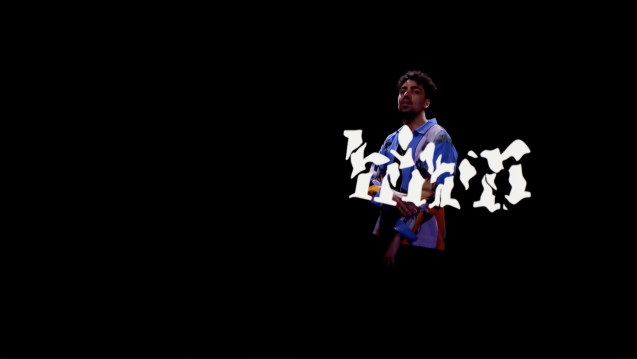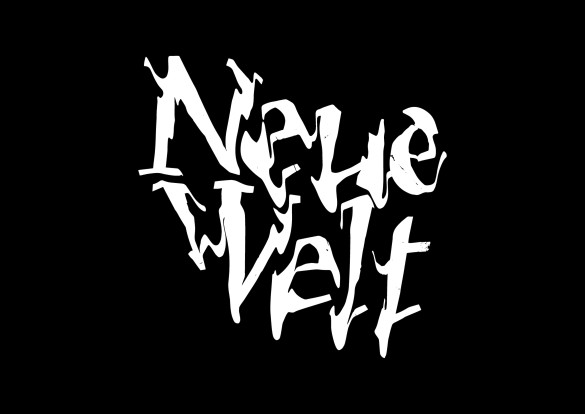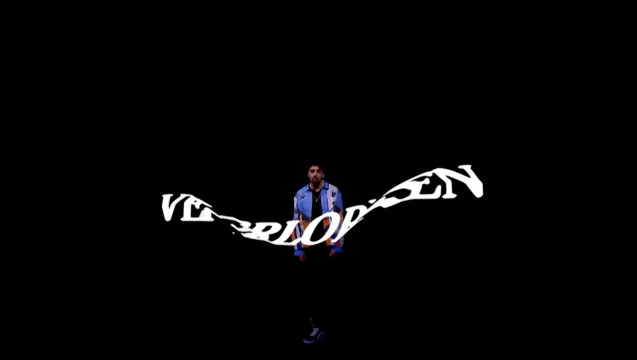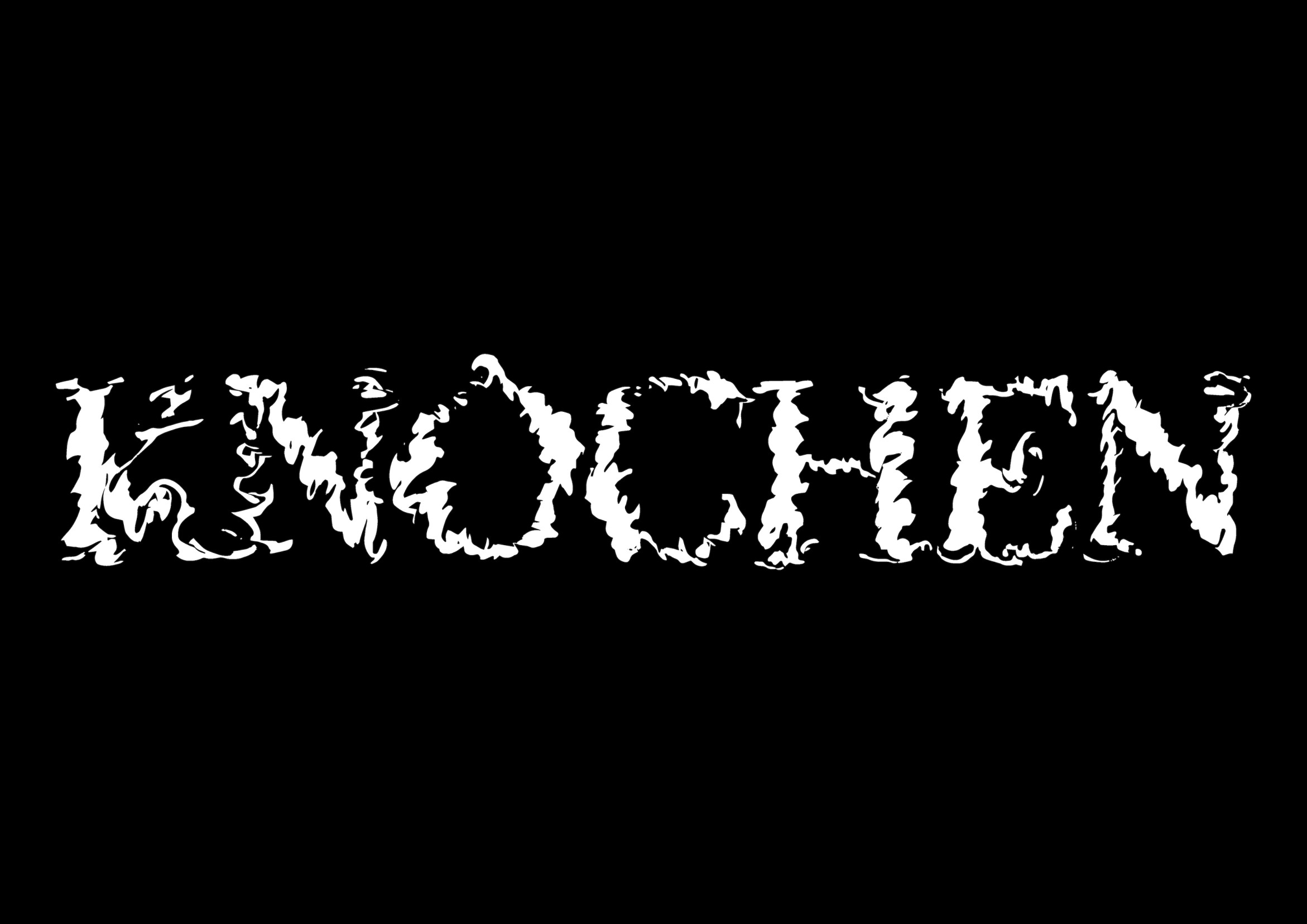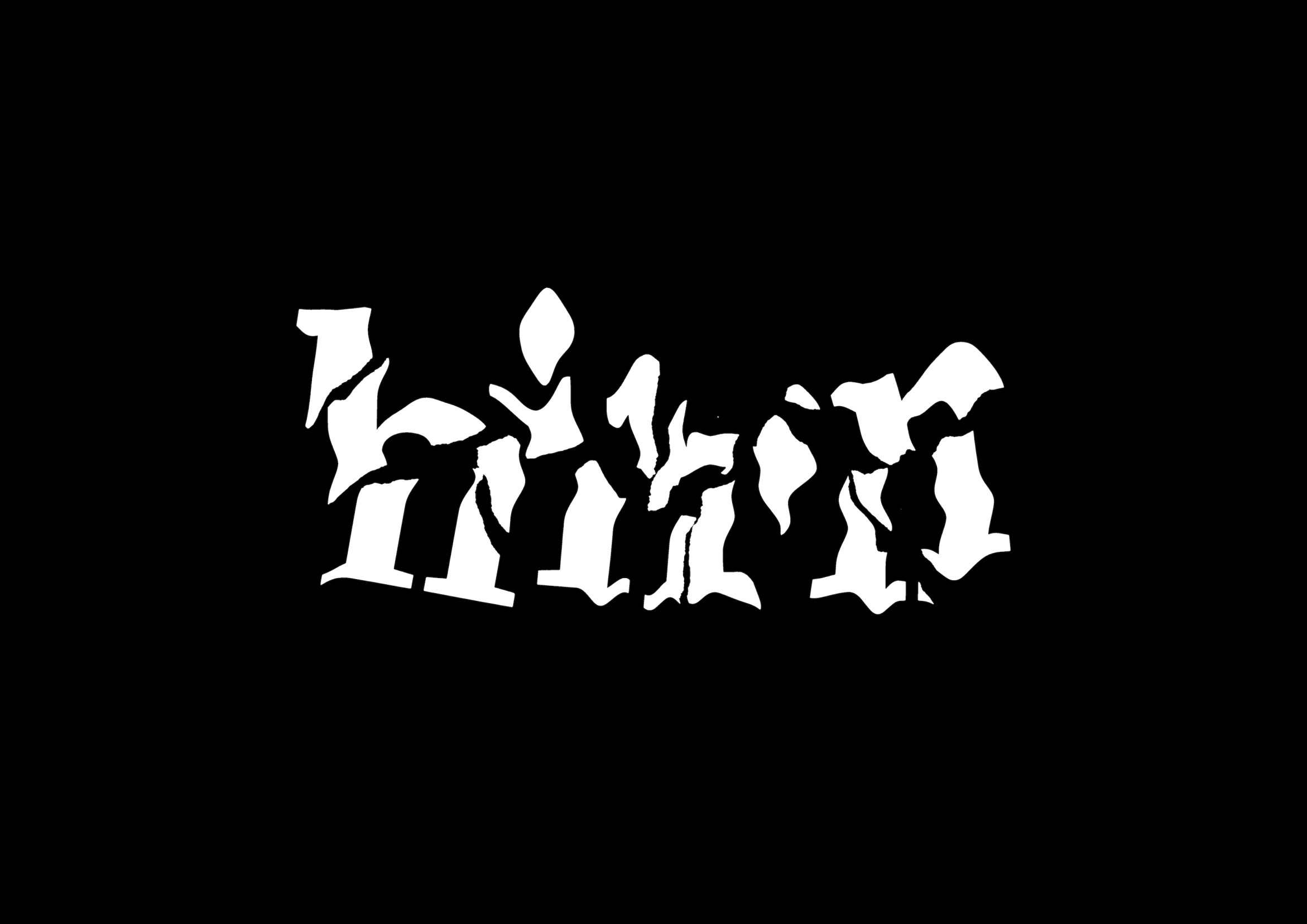
Typografische Inszenierung
WE LOVE XR is an international collaborative project by a variety of artists and contributors from different fields exploring the possibilities of extended reality on a semicircular LED video wall. Initiated and curated by OBJ.Studio the project is made possible by AMBION GmbH at the SUPEROOM XR studio.
For the first event of this project artists designed words of a poem that was presented in a spoken word performance. We created four designs using analog distortion effects creating a particular 3D impression.